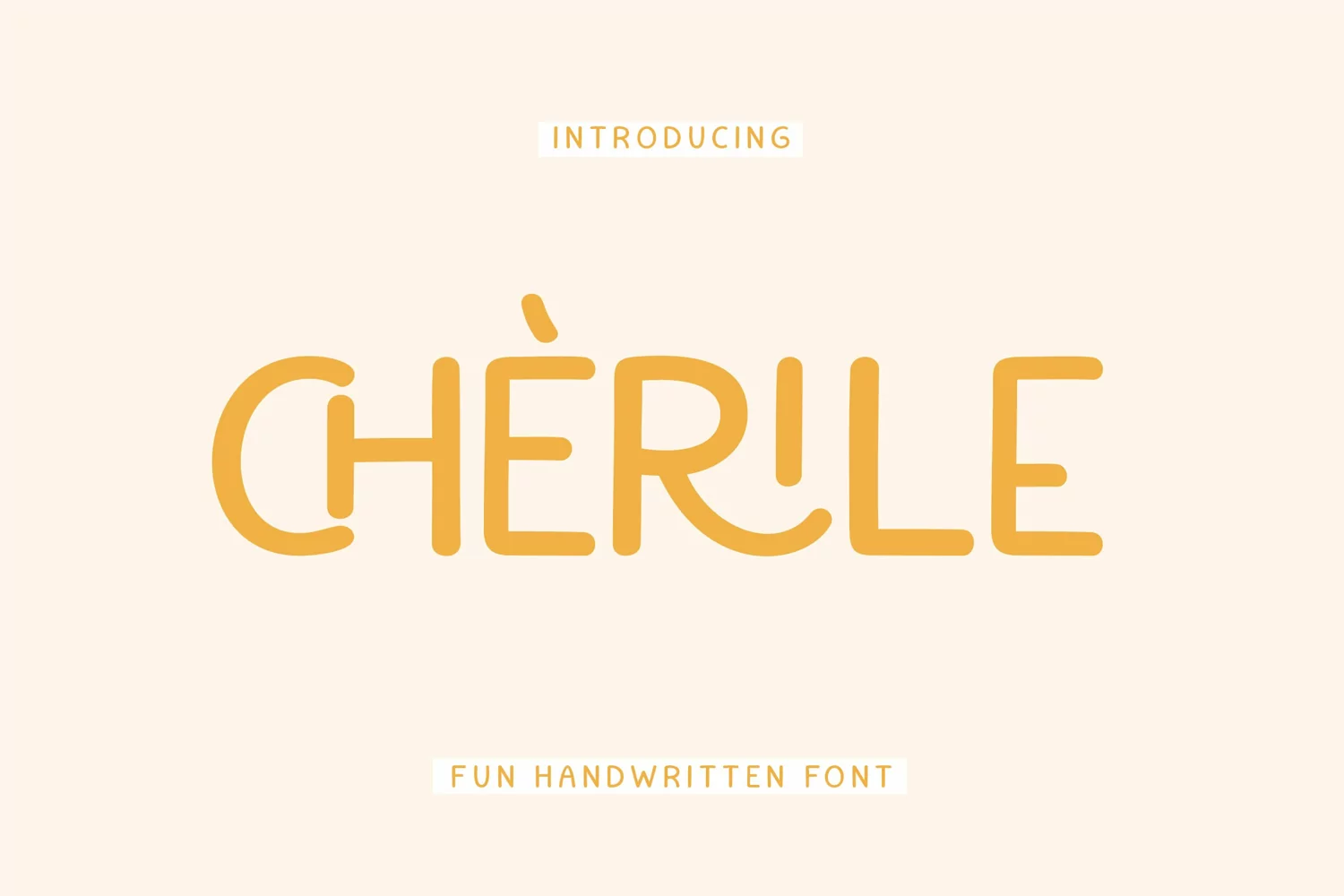
Cherile
Introducing "Cherile" - a lively and playful handwritten font that injects a sense of fun and joy into your designs. With its whimsical letterforms and energetic strokes, Cherile adds a delightful and carefree vibe to any project.
There's some connected letters and some alternates that suitable for any graphic designs such as branding materials, t-shirt, print, business cards, logo, poster, t-shirt, photography, quotes .etc